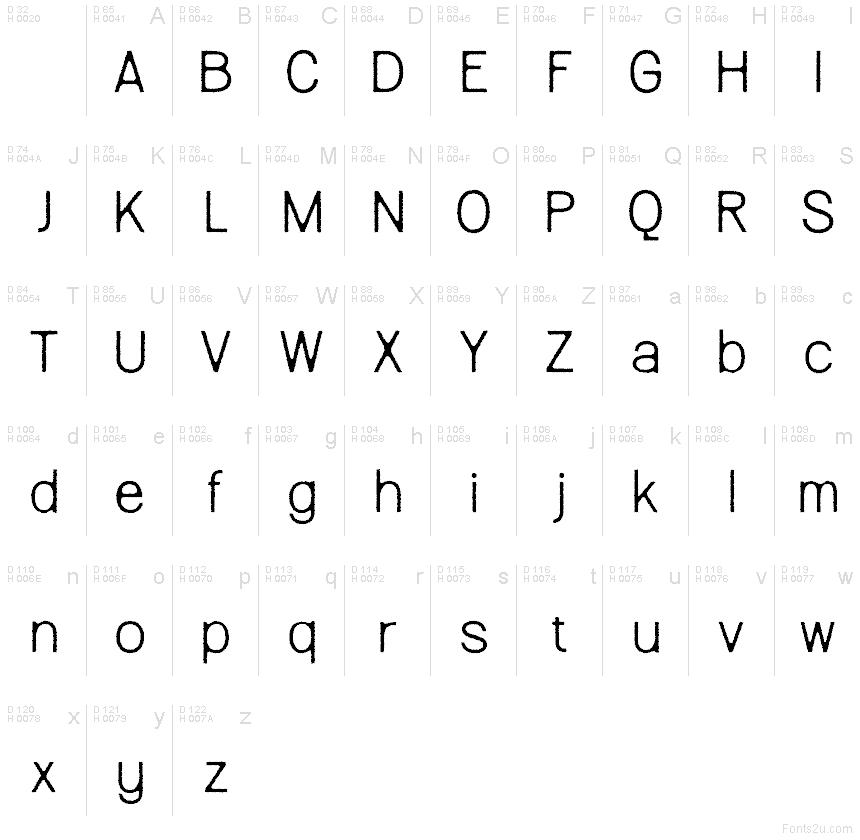
RaftworkRough-Regular Demo
Raftwork Rough font by Craft Supply Co. features an eroded texture that transforms its letters into worn-out forms as if they have faced the test of time. This free display font has a casual, handwritten, and even organic appearance made to create designs with a humble feel.
Use Raftwork Rough for advertisements, brochures, labels, magazine covers, book covers, websites, apps design layouts and elements of all other sorts.